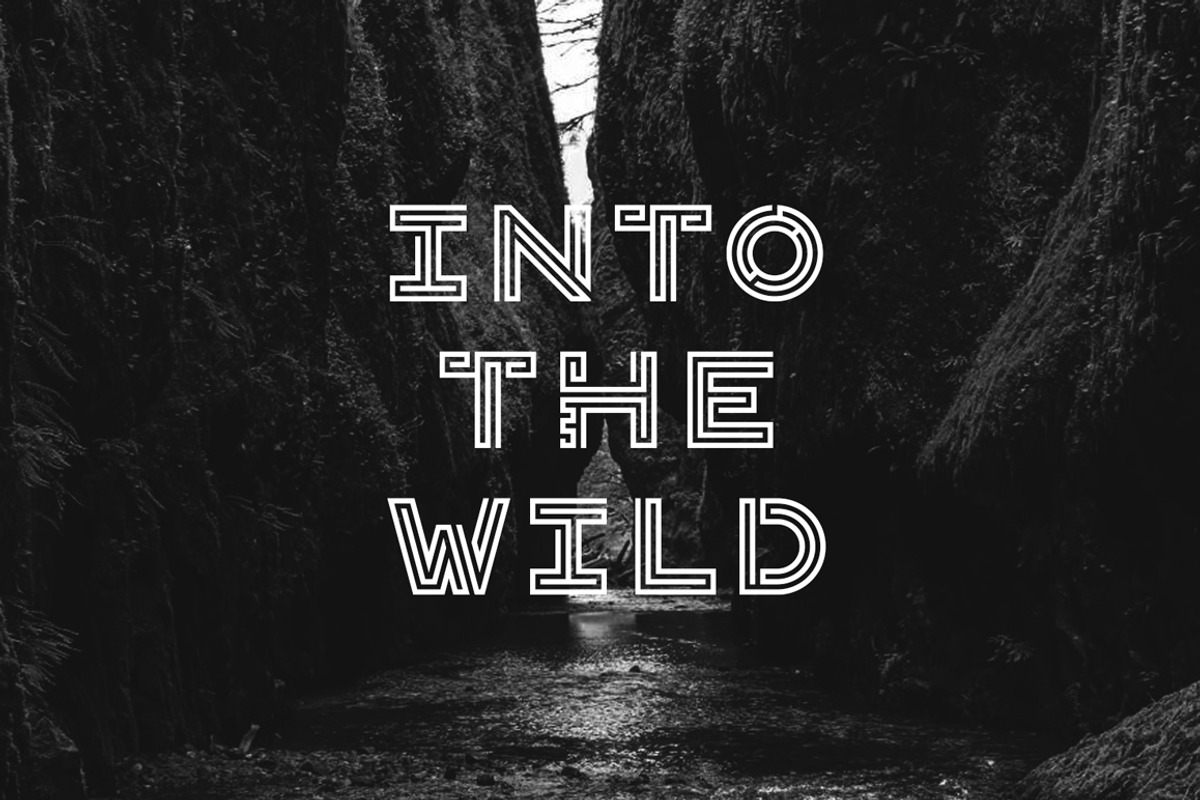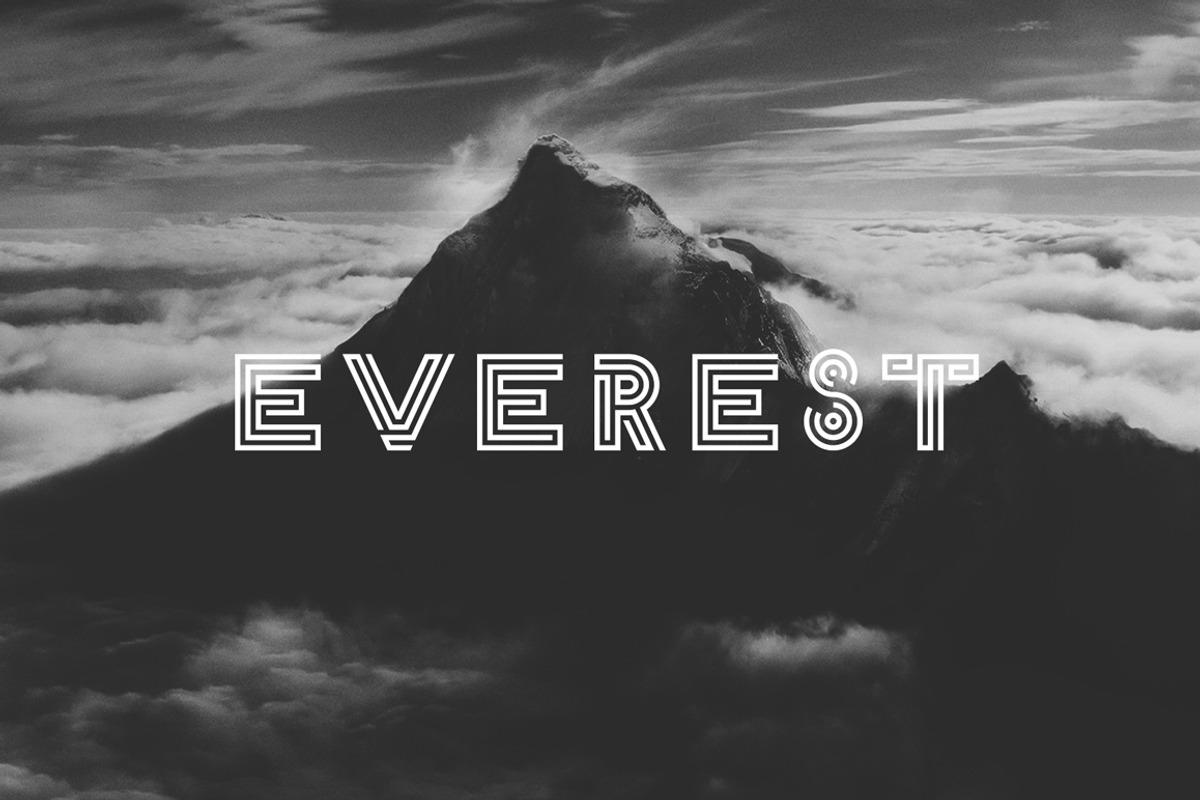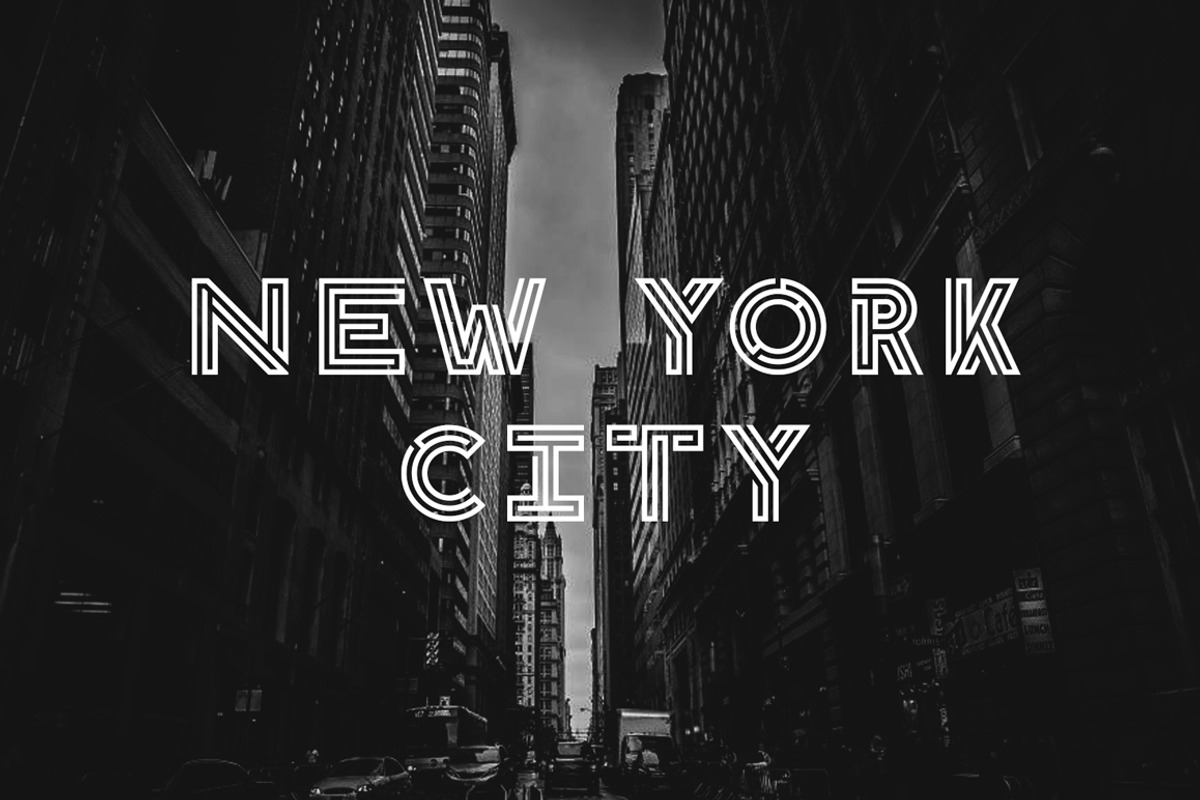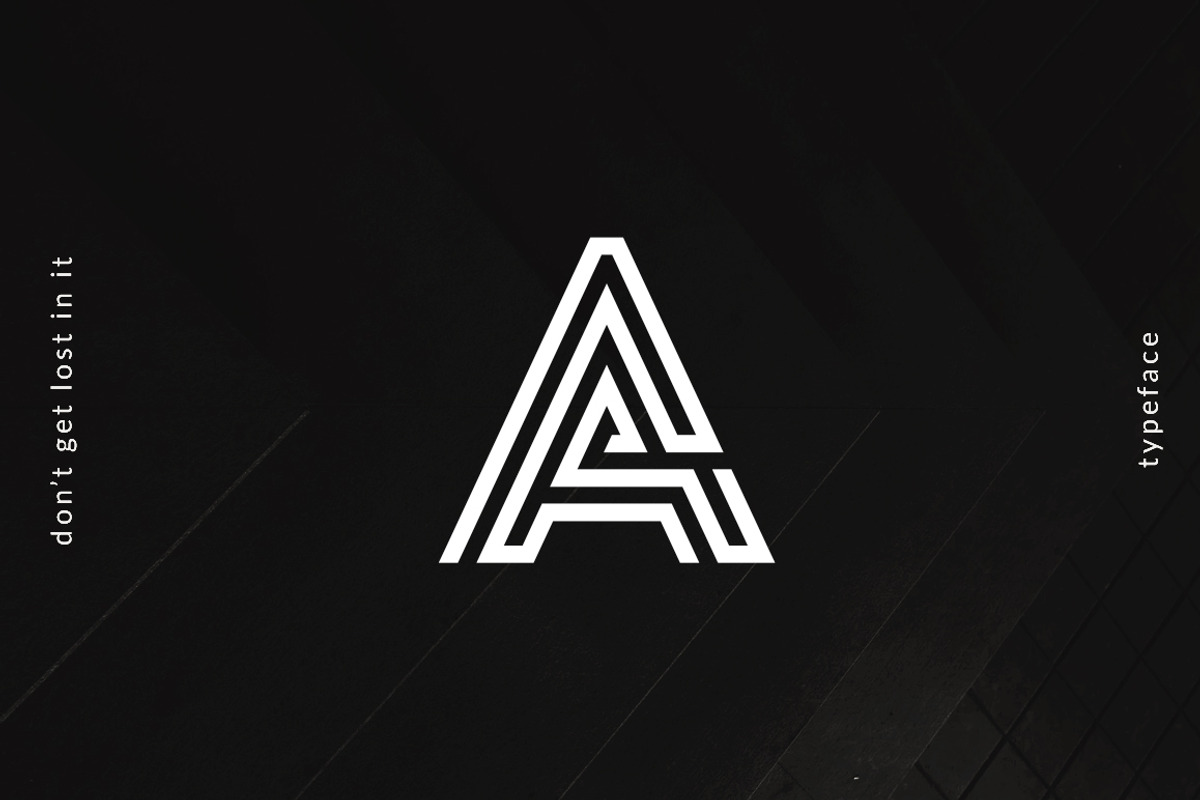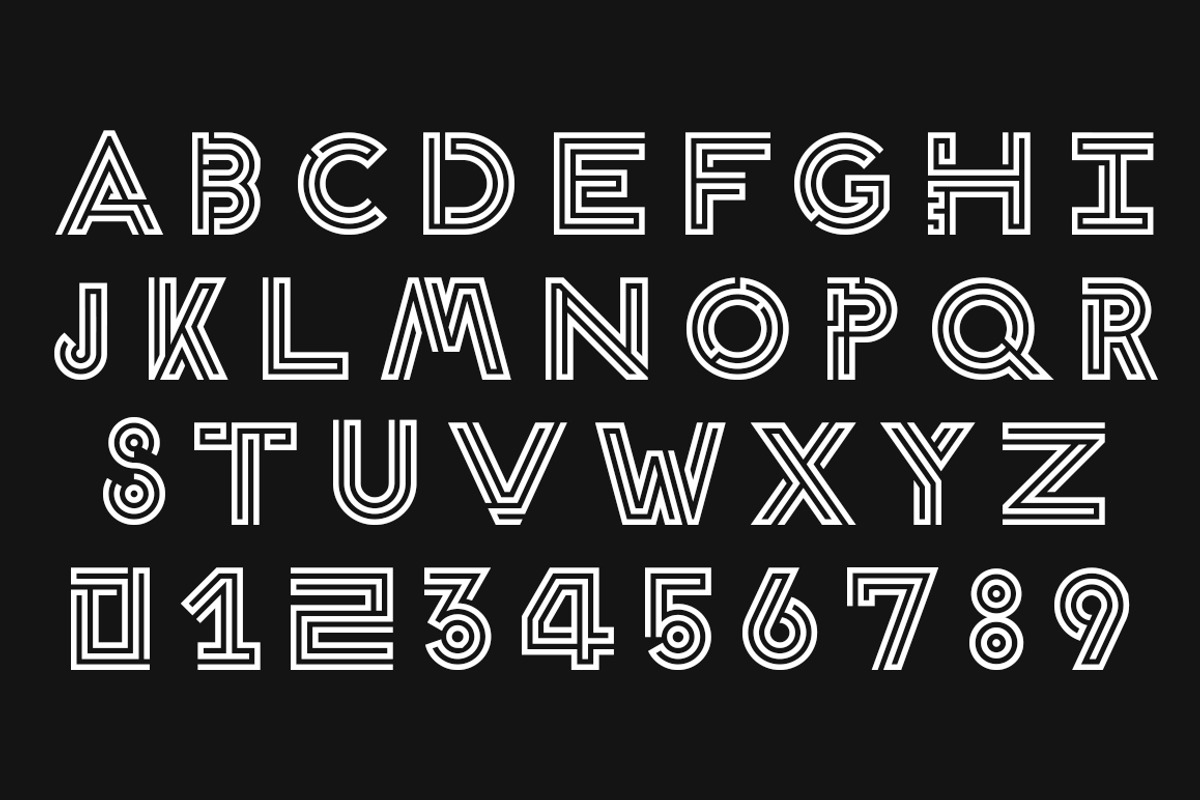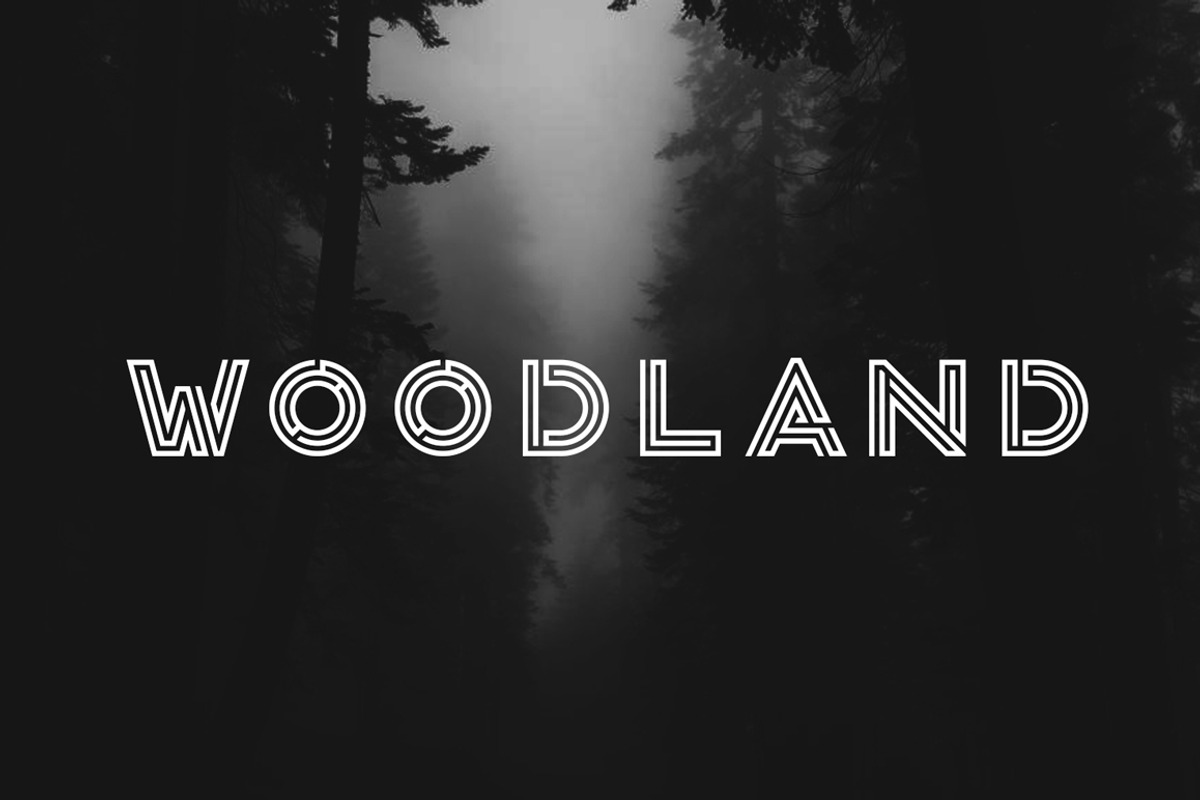
Daidalos Typeface
Daidalos Typeface by ATT is a font selected for branding, posters, packaging, typography.
Why Daidalos Typeface is worth a look
Daidalos Typeface by ATT fits naturally into Branding, posters, packaging, typography.